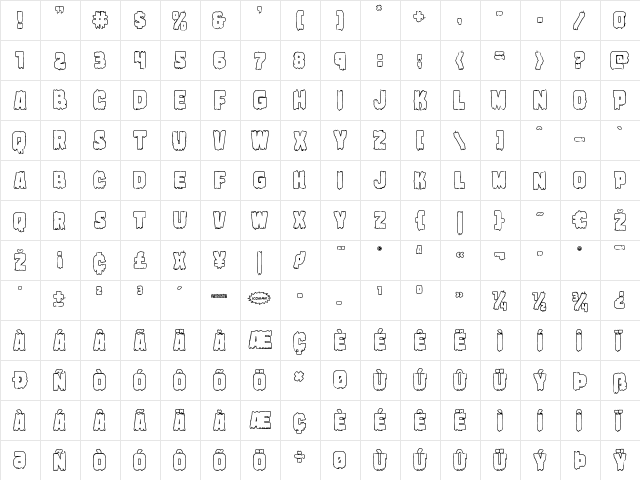
Marsh Thing Outline Regular
Design Context for Marsh Thing Outline Typeface
Marsh Thing Outline is built around its visual character rather than neutral utility — its distinctive forms are designed to make an impression at display sizes. The delicate stroke weight brings airiness and refinement to layouts.
Font Pairing: Pair with a clean neutral sans-serif for body copy to let Marsh Thing Outline's character lead without overwhelming the composition.
Pro Tip: Treat Marsh Thing Outline as the centrepiece of your typographic hierarchy. One strong heading set in a decorative face can carry an entire layout.